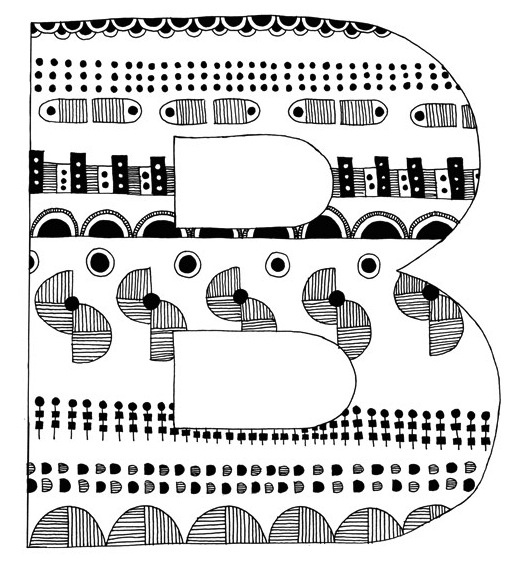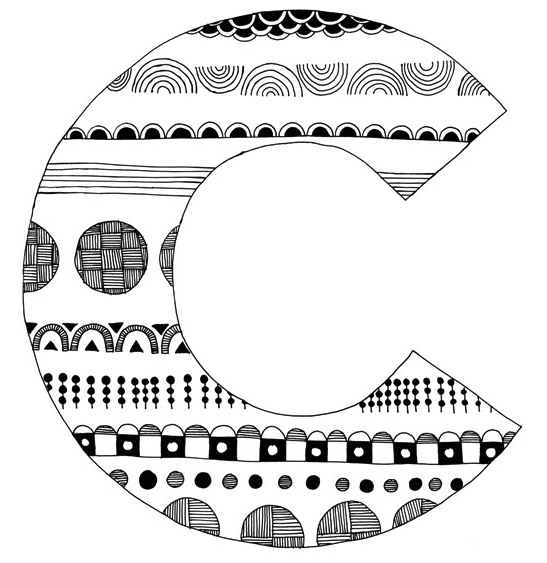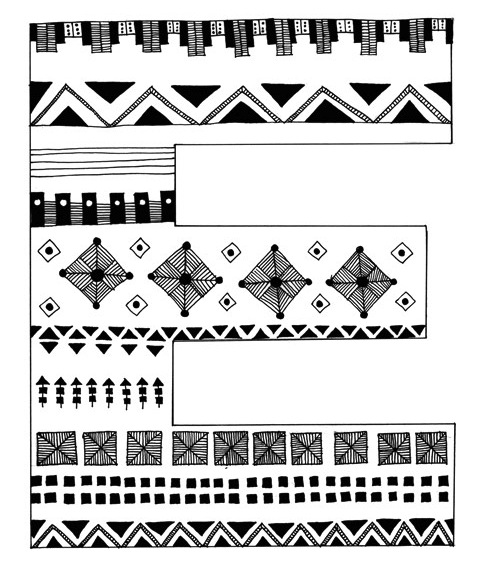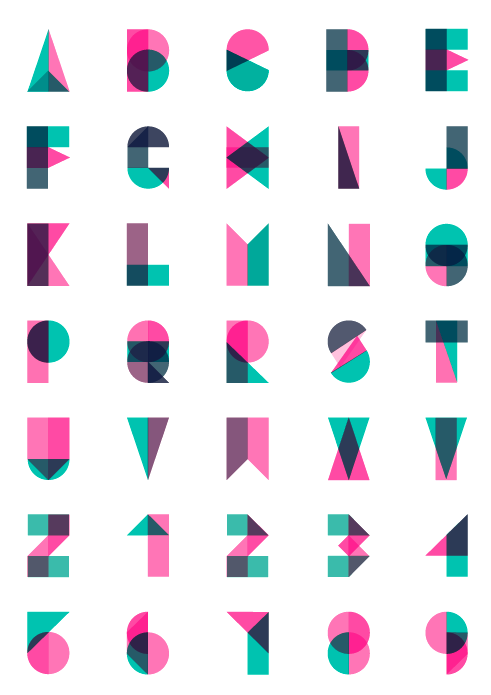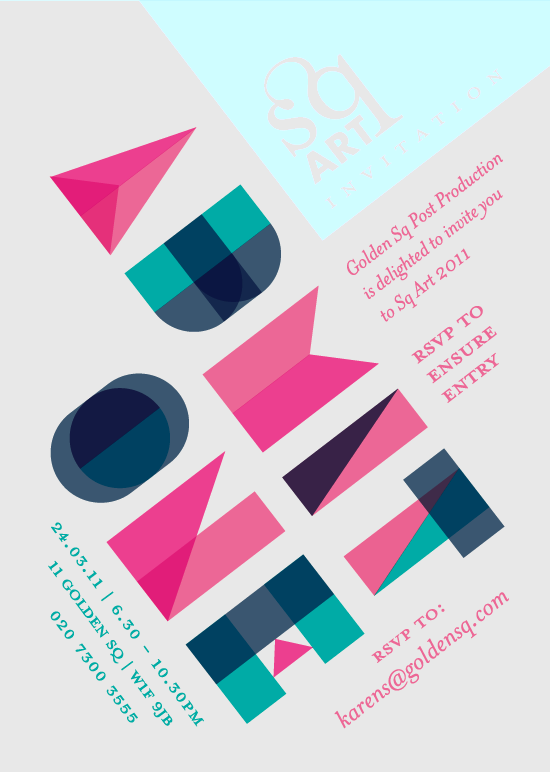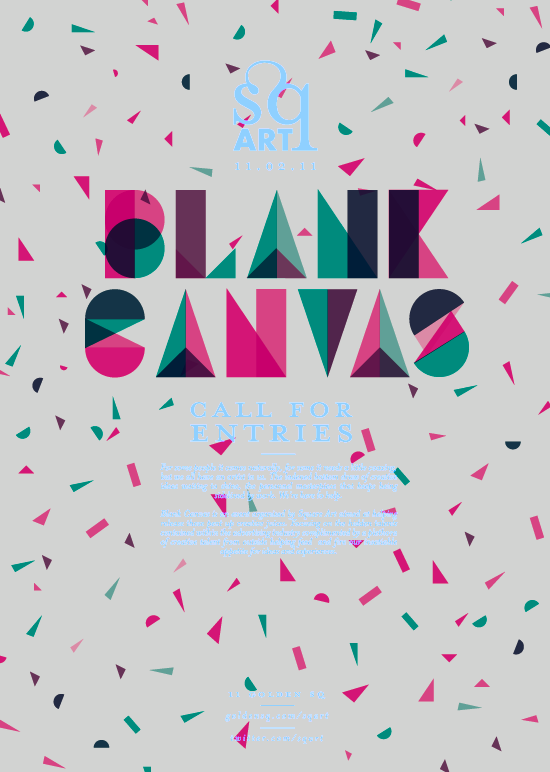
Studio Lovelock
Studio in London. Their typefaces and alphabets include a patterned illustrated type (2015) and a colored geometric typeface for Square Art 11 (2011). Behance link.